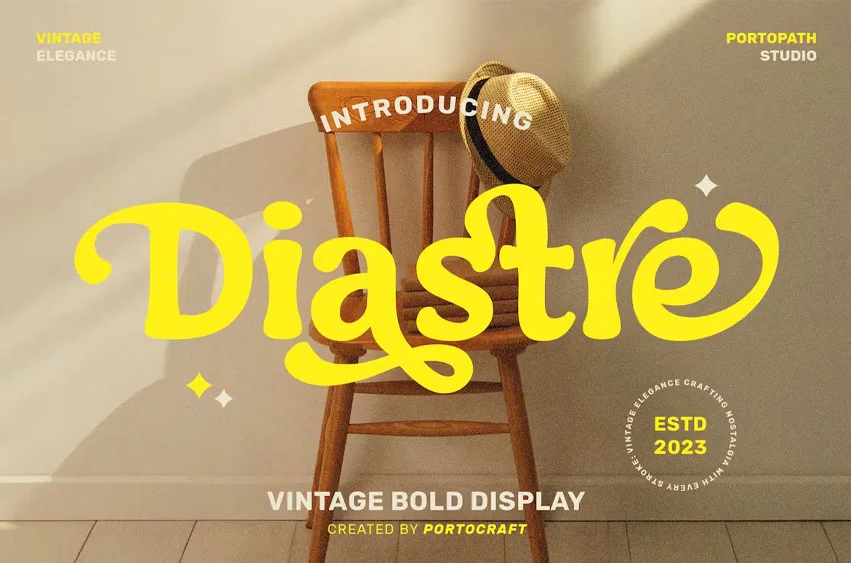
Diastre Font
Diastre Font Vintage Bold Display is a stylish font It has both modern and retro look. Comes with alternatives and ligatures, helps to create stunning logos, quotes, posts, blog posts. branding projects, magazine imagery, wedding invitations, and much more.
• Unique Letterforms